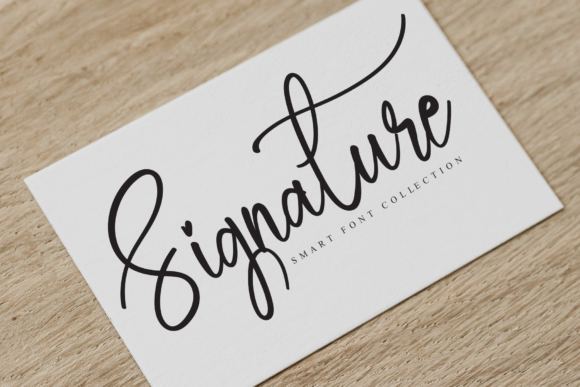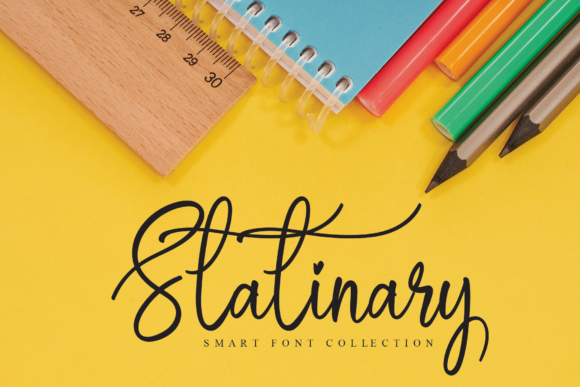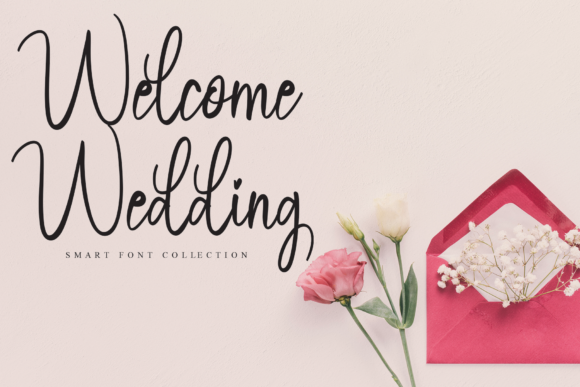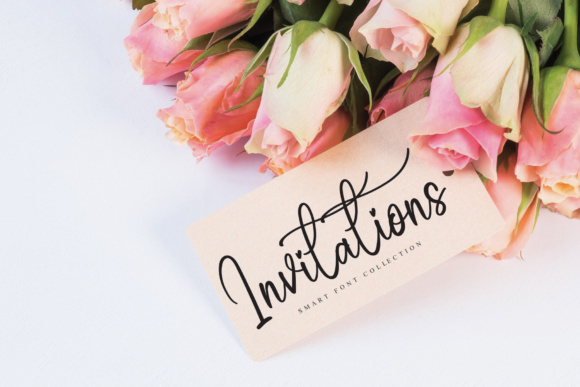
Discover the Charm of California Font: Elevate Your Designs with a Relaxed and Whimsical Script
Are you tired of using the same old fonts in your designs? Look no further than the California Font, a beautiful and unique script font that’s sure to add a touch of whimsy and relaxation to your creations. With its lovely style and versatile theme, California Font is an incredibly valuable asset to any designer’s font library.
The Characteristics of California Font
California Font is a script font that exudes a sense of calmness and serenity. Its relaxed theme makes it perfect for designs that require a laid-back and casual feel. The font features beautiful, flowing lines and a distinctive style that’s both elegant and approachable. Whether you’re working on a project for a fashion brand, a lifestyle blog, or a creative agency, California Font is sure to bring a touch of sophistication and charm to your designs.
What Makes California Font So Versatile?
One of the things that sets California Font apart from other script fonts is its incredible versatility. No matter the topic or theme of your project, this font is sure to complement it perfectly. Whether you’re creating a design for a children’s book, a wedding invitation, or a social media post, California Font will add a touch of magic and wonder to your work.
California Font is also highly legible, making it perfect for use in a variety of contexts, from large headings to body text. Its clear and flowing lines ensure that your message will be conveyed with ease, no matter how you’re using the font.
The Benefits of Using California Font
So why should you choose California Font for your next design project? Here are just a few of the benefits of using this beautiful script font:
- Unique and eye-catching: California Font is a one-of-a-kind font that’s sure to grab attention and make your designs stand out.
- Versatile: Whether you’re working on a project for a corporate client or a personal blog, California Font is sure to fit the bill.
- Easy to read: California Font is highly legible, making it perfect for use in a variety of contexts.
- Elegant and sophisticated: California Font adds a touch of elegance and sophistication to any design, making it perfect for high-end clients or special occasions.
How to Use California Font in Your Designs
California Font is incredibly easy to use and can be incorporated into your designs in a variety of ways. Here are a few ideas to get you started:
- Headings and titles: Use California Font to add a touch of elegance and sophistication to your headings and titles.
- Body text: California Font is highly legible, making it perfect for use in body text.
- Logos and branding: California Font can be used to create beautiful and unique logos and branding materials.
- Social media graphics: Add a touch of whimsy and charm to your social media graphics with California Font.
In conclusion, California Font is a beautiful and versatile script font that’s sure to elevate any design. With its relaxed theme, lovely style, and incredible versatility, this font is a must-have for any designer’s font library. Whether you’re working on a project for a corporate client or a personal blog, California Font is sure to bring a touch of magic and wonder to your work. So why wait? Download California Font today and start creating stunning designs that will leave a lasting impression.